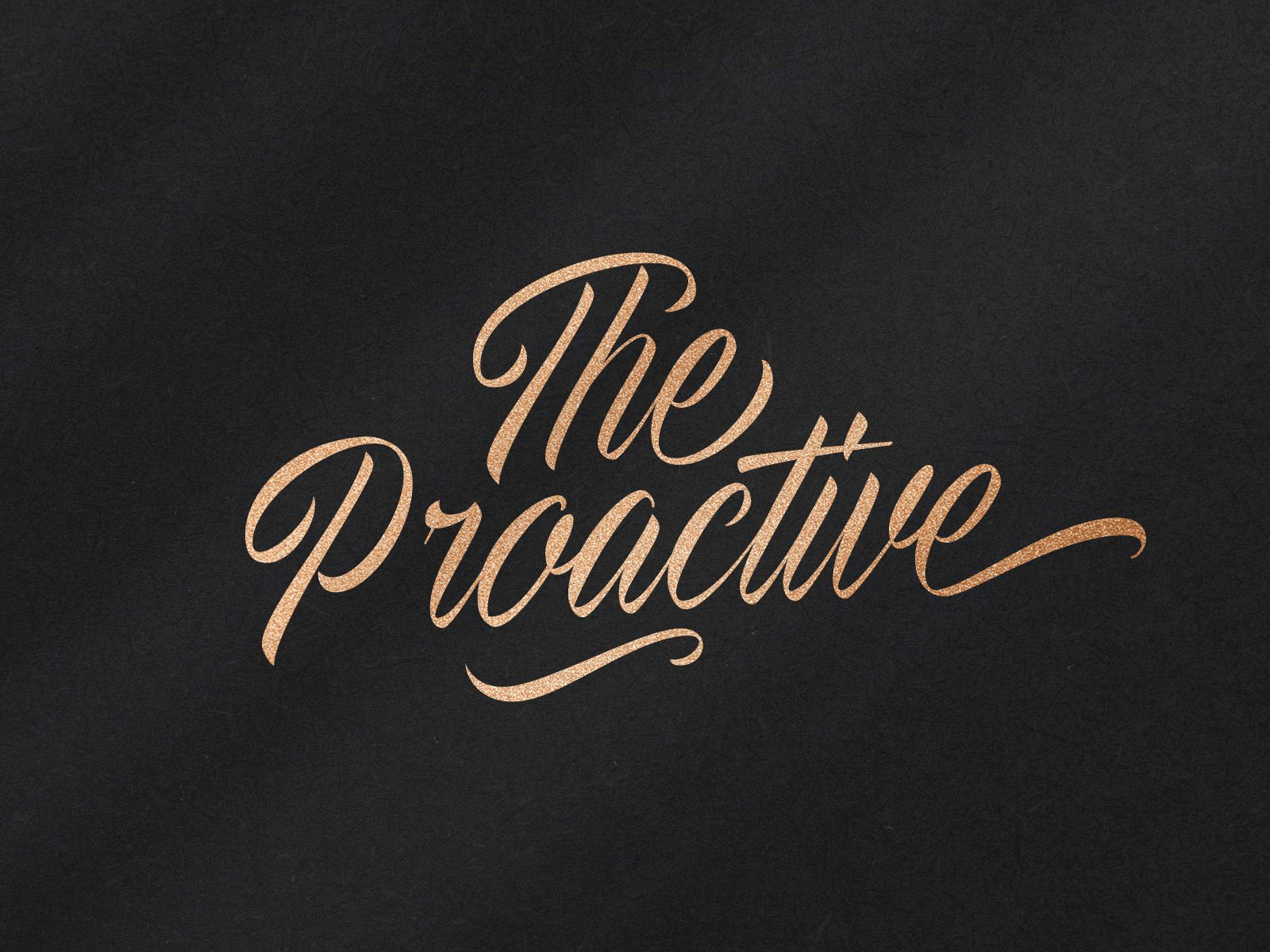
The Proactive Script Font
It's not just another font for your kit. In fact, it's a one of a kind script typeface! What makes it special is that the typeface was made from the original handwriting and transformed into a font.